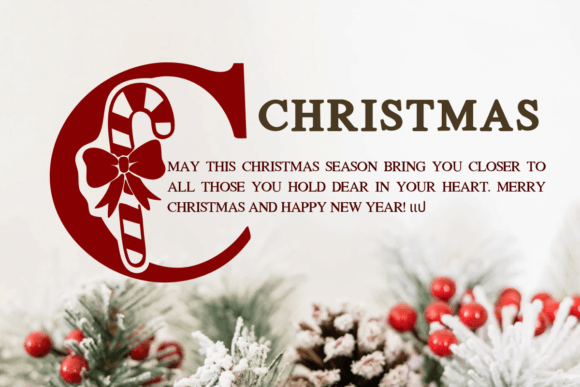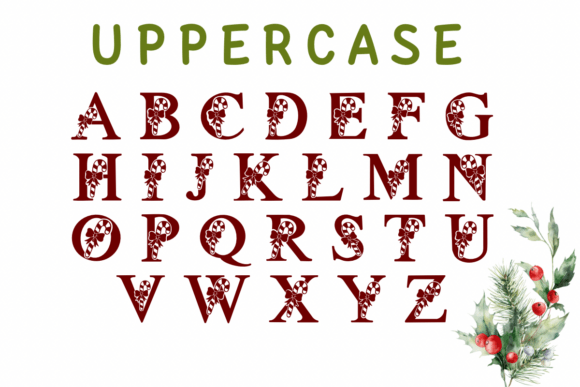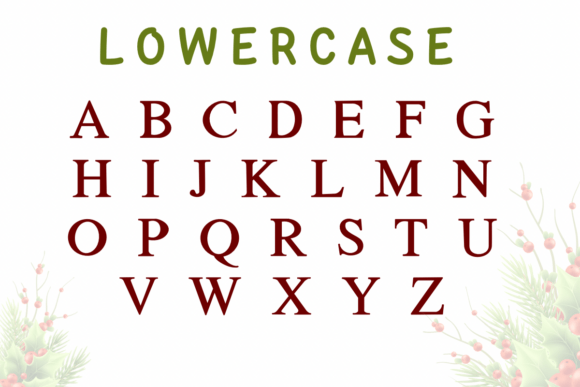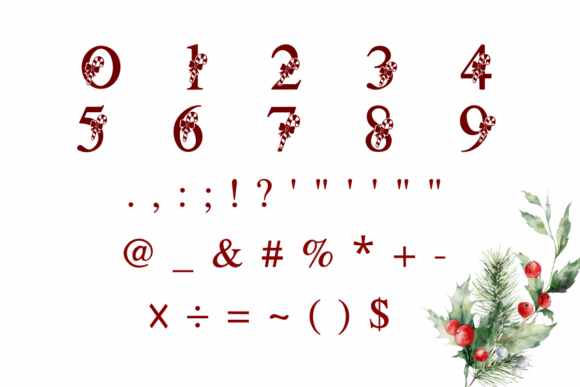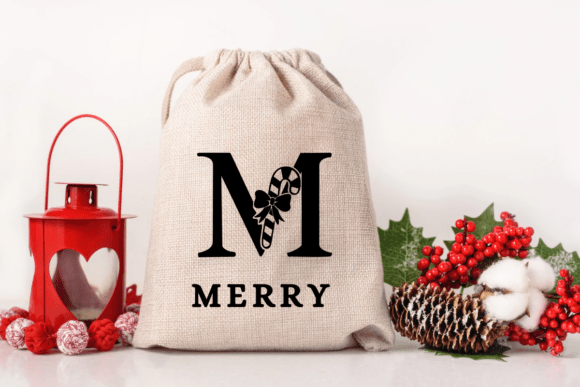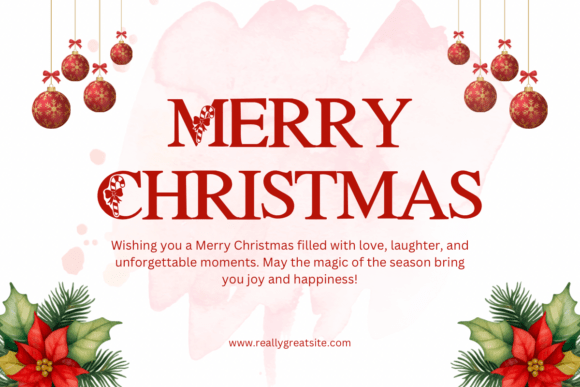
Christmas Candy Font: A Sweet Addition to Your Festive Projects
Are you looking for a fun and festive font to add to your holiday projects? Look no further than the Christmas Candy font! This cute decorative font is perfect for designers and crafters who want to add a touch of sweetness to their Christmas cards, gift tags, and other holiday creations.
What is Christmas Candy Font?
Christmas Candy is a decorative font that is designed to look like candy canes, gumdrops, and other sweet treats. It’s a unique and playful font that is sure to add a festive touch to any project. The font is made up of bold, colorful letters that are perfect for creating eye-catching headlines and titles.
Features of Christmas Candy Font
• Cute and playful design: The Christmas Candy font features a fun and playful design that’s perfect for holiday projects.
• Decorative letters: The font includes a range of decorative letters, including uppercase and lowercase letters, numbers, and punctuation marks.
• Christmas cards: Create festive Christmas cards with bold, colorful headlines and titles.
• Gift tags: Add a personal touch to your gifts with custom gift tags featuring the Christmas Candy font.
• Holiday posters: Create eye-catching holiday posters with the Christmas Candy font.
• Social media graphics: Add a festive touch to your social media graphics with the Christmas Candy font.
• Use it sparingly: While the Christmas Candy font is fun and festive, it can be overwhelming if used too much. Use it sparingly to add a pop of color and interest to your designs.
• Pair it with other fonts: Pair the Christmas Candy font with other fonts to create a unique and interesting design.
• Experiment with colors: The Christmas Candy font comes in a range of colors, so experiment with different colors to find the one that works best for your design.
The Christmas Candy font is a fun and festive addition to any holiday project. With its cute and playful design, decorative letters, and ease of use, it’s perfect for designers and crafters of all skill levels. Whether you’re creating Christmas cards, gift tags, or holiday posters, the Christmas Candy font is sure to add a touch of sweetness to your designs. So why not give it a try and see what sweet creations you can come up with?
Introducing Christmas Candy Font: The Sweetest Addition to Your Designs
Are you looking for a font that embodies the playfulness and magic of the holiday season? Look no further than Christmas Candy Font! This fun and decorative font is perfect for adding a touch of festive flair to your designs, from blog posts and logos to invitations and greeting cards.
What is Christmas Candy Font?
Christmas Candy Font is a unique and eye-catching font that is sure to make your designs stand out. With its playful and whimsical style, it’s the perfect choice for anyone looking to add a little bit of holiday cheer to their work. Whether you’re a designer, crafter, or simply someone who loves the holiday season, Christmas Candy Font is a great addition to your toolkit.
Why Choose Christmas Candy Font?
So why choose Christmas Candy Font for your designs? Here are just a few reasons why this font is a great choice:
• Playfulness: Christmas Candy Font has a fun and playful style that’s perfect for the holiday season. It’s sure to add a touch of whimsy and personality to your designs.
• Authenticity: This font has a genuine, homemade feel that’s perfect for creating unique and personalized designs.
• Versatility: Christmas Candy Font can be used for a wide range of projects, from blog posts and social media graphics to logos, branding, and more.
Uses for Christmas Candy Font
So what can you use Christmas Candy Font for? The possibilities are endless! Here are a few ideas to get you started: